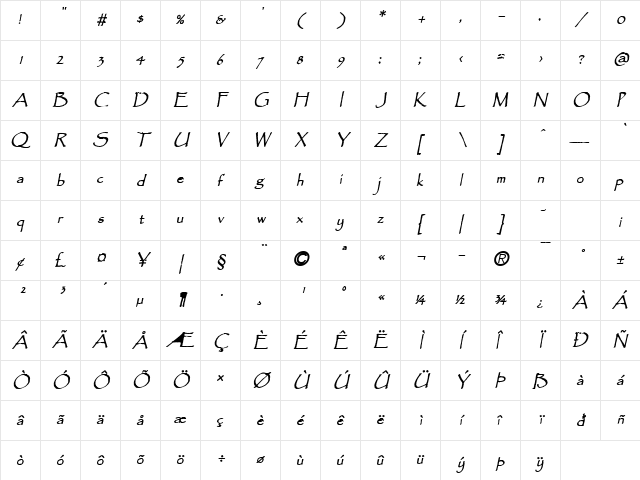
Chalk Bold Italic Free Font
Chalk Bold Italic
Chalk Family
Design Context for Chalk
Chalk is a composed and adaptable typeface that performs quietly and consistently across a wide range of design contexts. The slanted form adds forward momentum and visual energy. Its bold stroke weight gives it real presence on the page.
Pro Tip: Use Chalk for emphasis, pull quotes, and subheadings where its slanted energy can add rhythm to the layout.